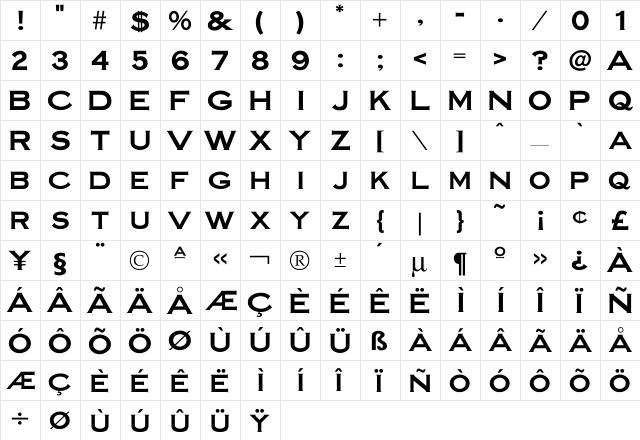
IrronplateGothicBold Regular Font Preview
IrronplateGothicBold Regular
IrronplateGothicBold Regular Font Details
Design Context for IrronplateGothicBold Typeface
IrronplateGothicBold has the quiet confidence of well-executed sans-serif typography: versatile, unobtrusive, and dependable at any size. Its bold stroke weight gives it real presence on the page.
Well-suited to navigation labels, product packaging, and anywhere legibility at scale is essential.
Font Pairing: Use IrronplateGothicBold for headlines alongside a lighter-weight sans or serif for body copy to establish clear visual hierarchy.
Pro Tip: Use IrronplateGothicBold for UI labels, navigation, and short-form body copy where clean legibility is the priority.